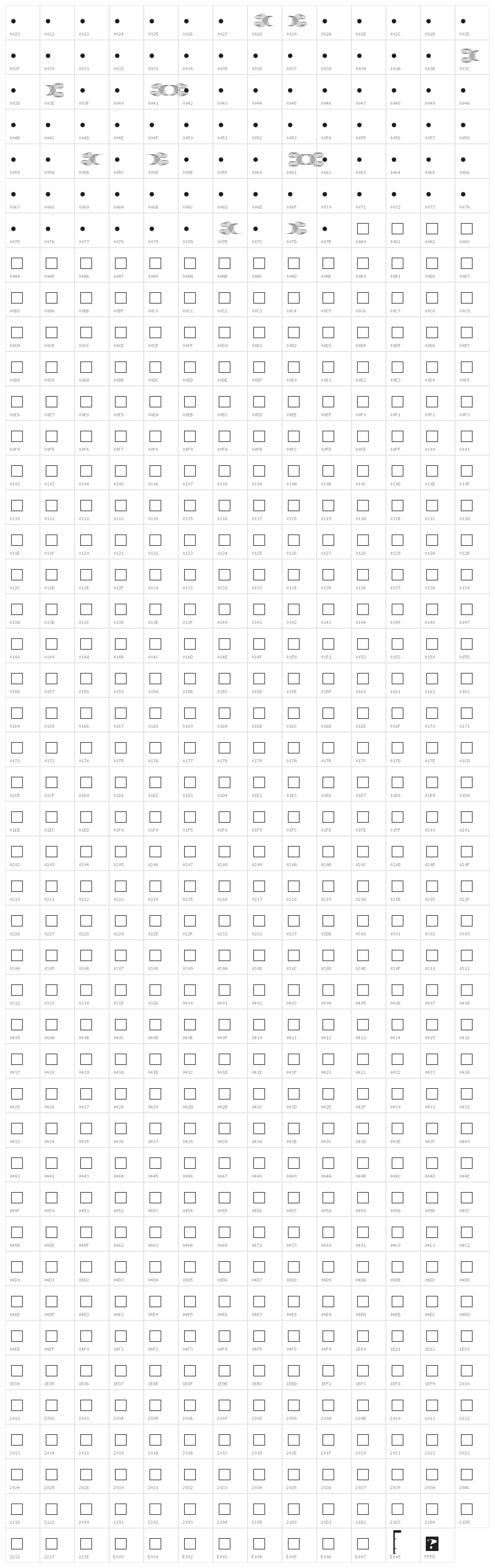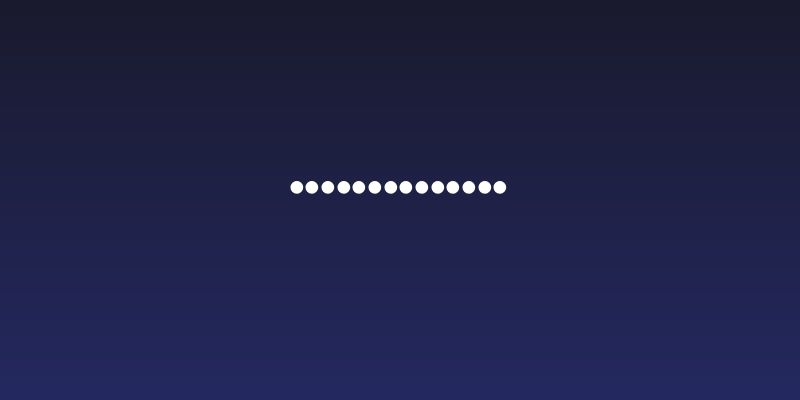
FoglihtenBPS01 Font
FoglihtenBPS01 Description
This image does not contain a valid font. It features decorative elements and patterns that do not correspond to any recognizable alphabet or numerical system. The design consists of intricate line work and geometric shapes, which might be used for ornamental purposes but do not form a coherent typeface suitable for text representation.
| Use Case | Decorative elements, Graphic design |
| Proposed Projects | This design could be used for decorative borders, graphic design elements, or artistic projects. |